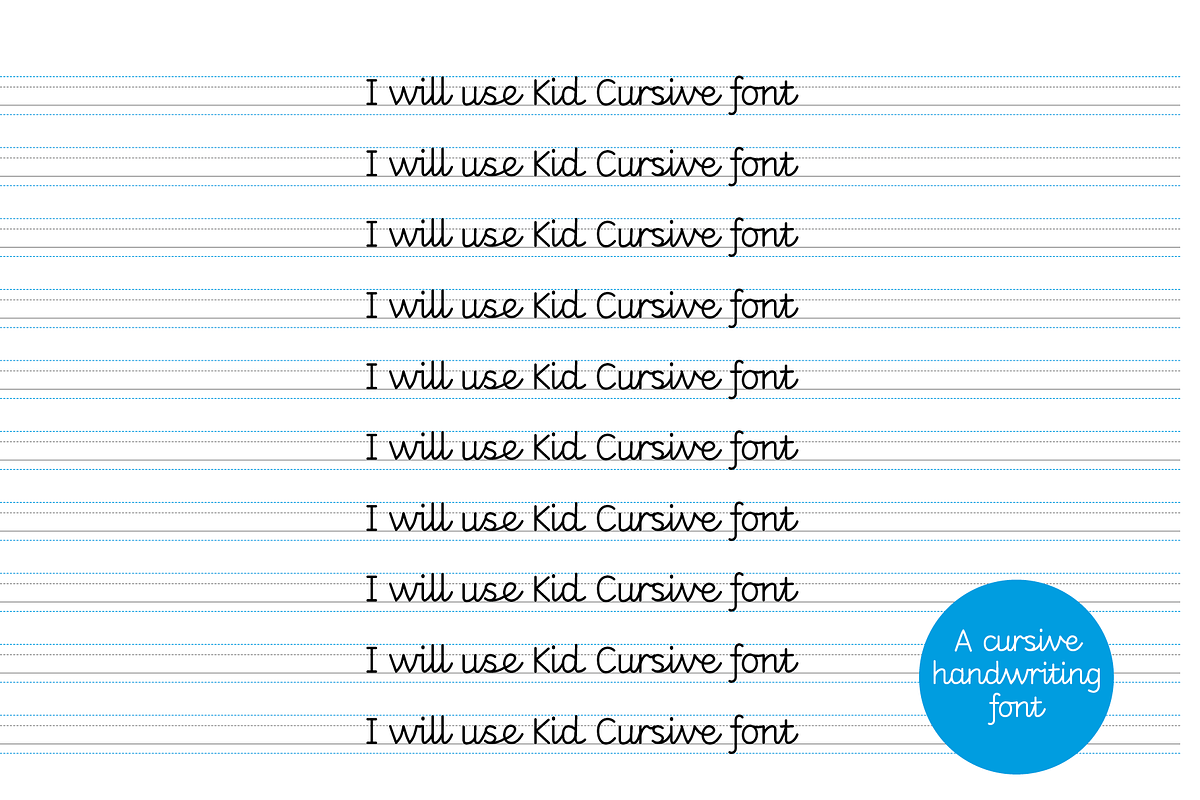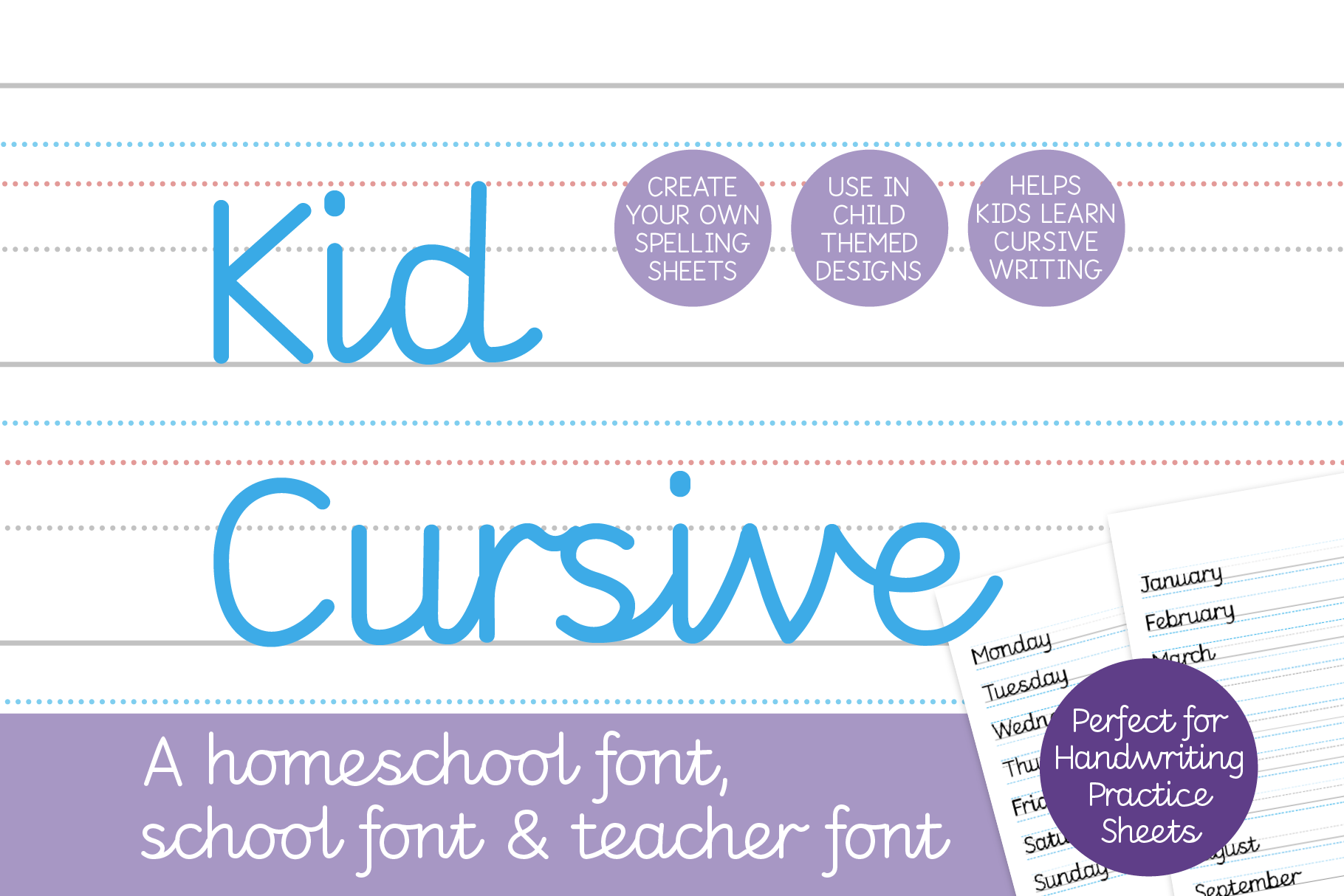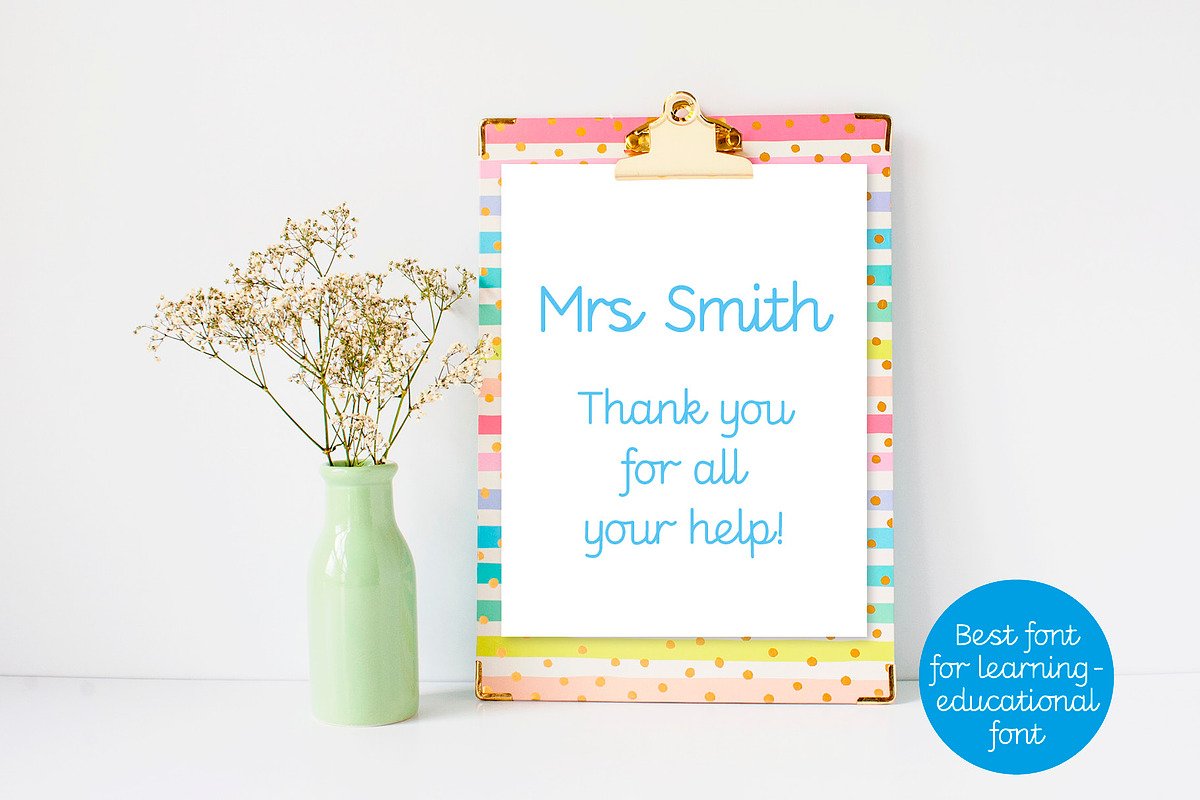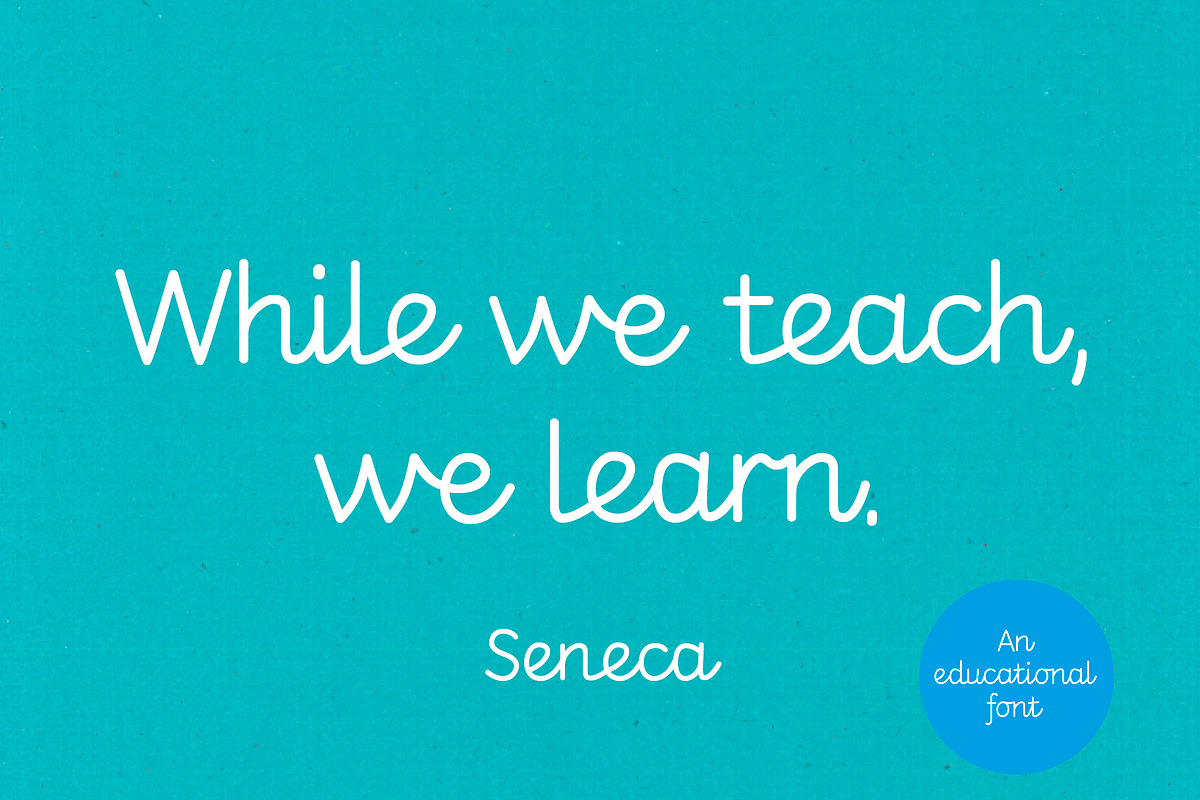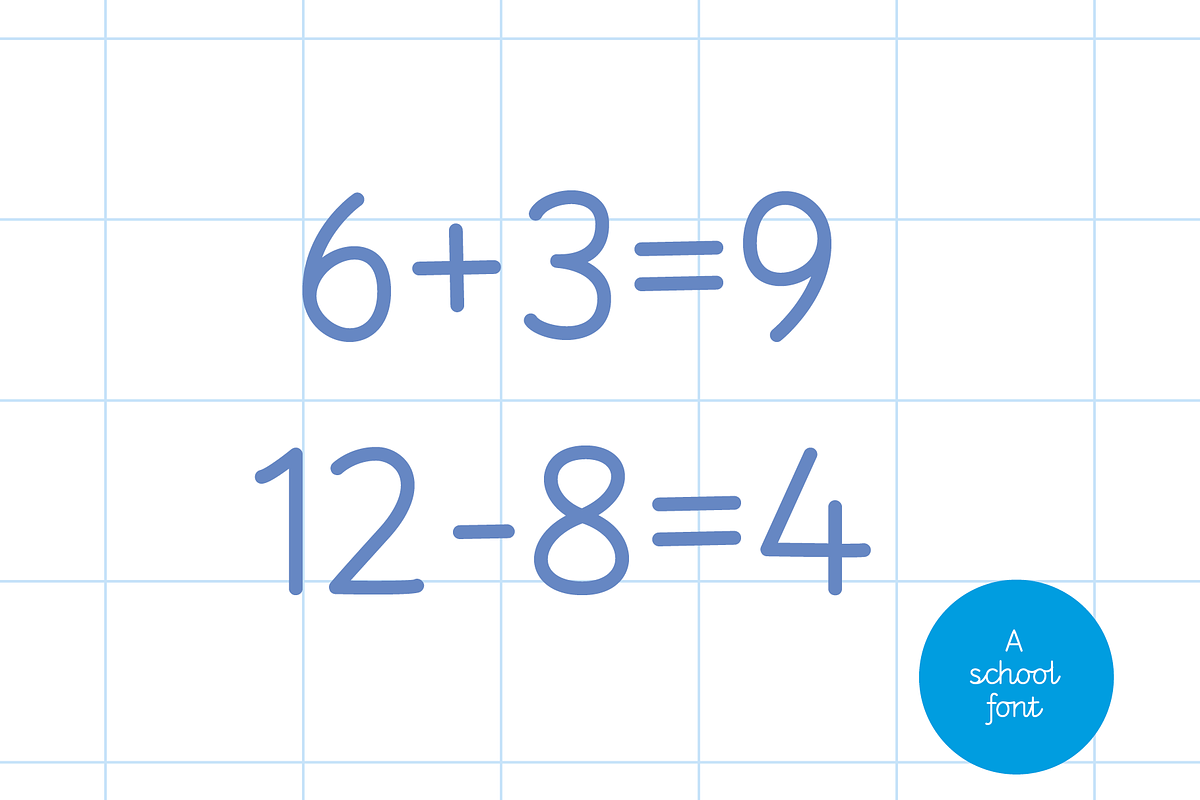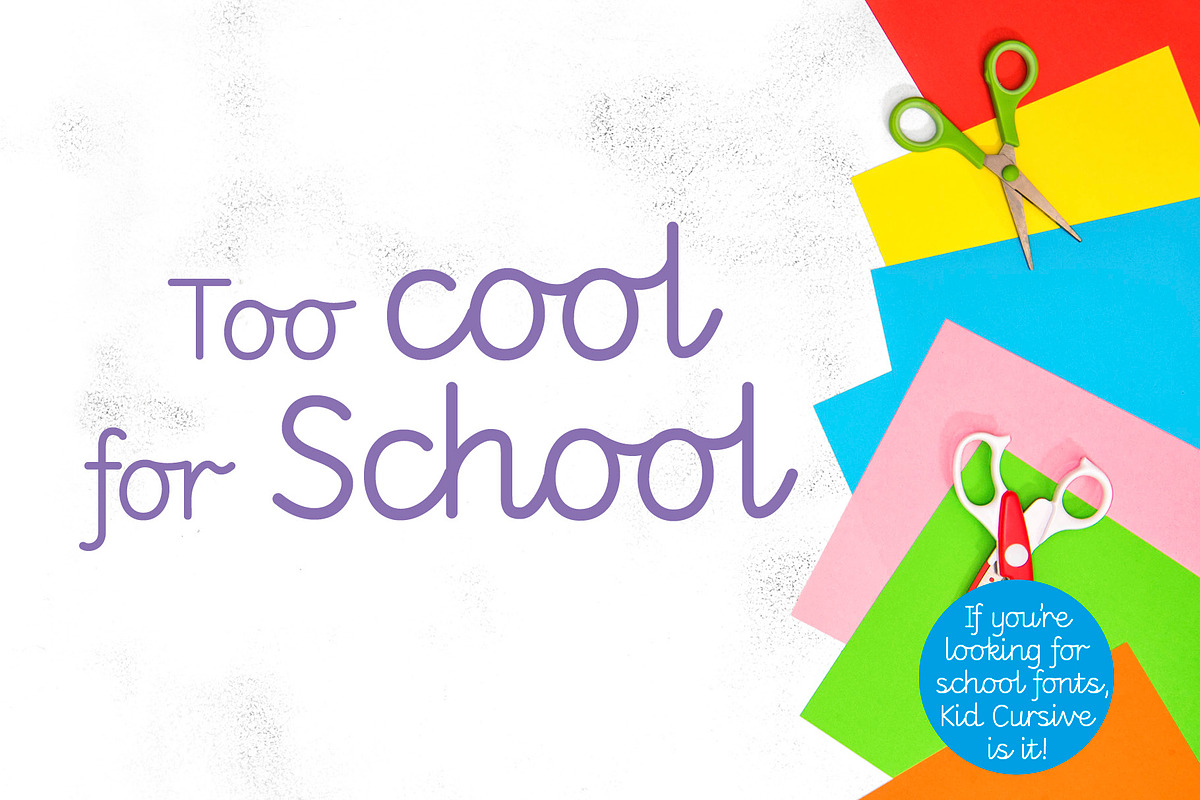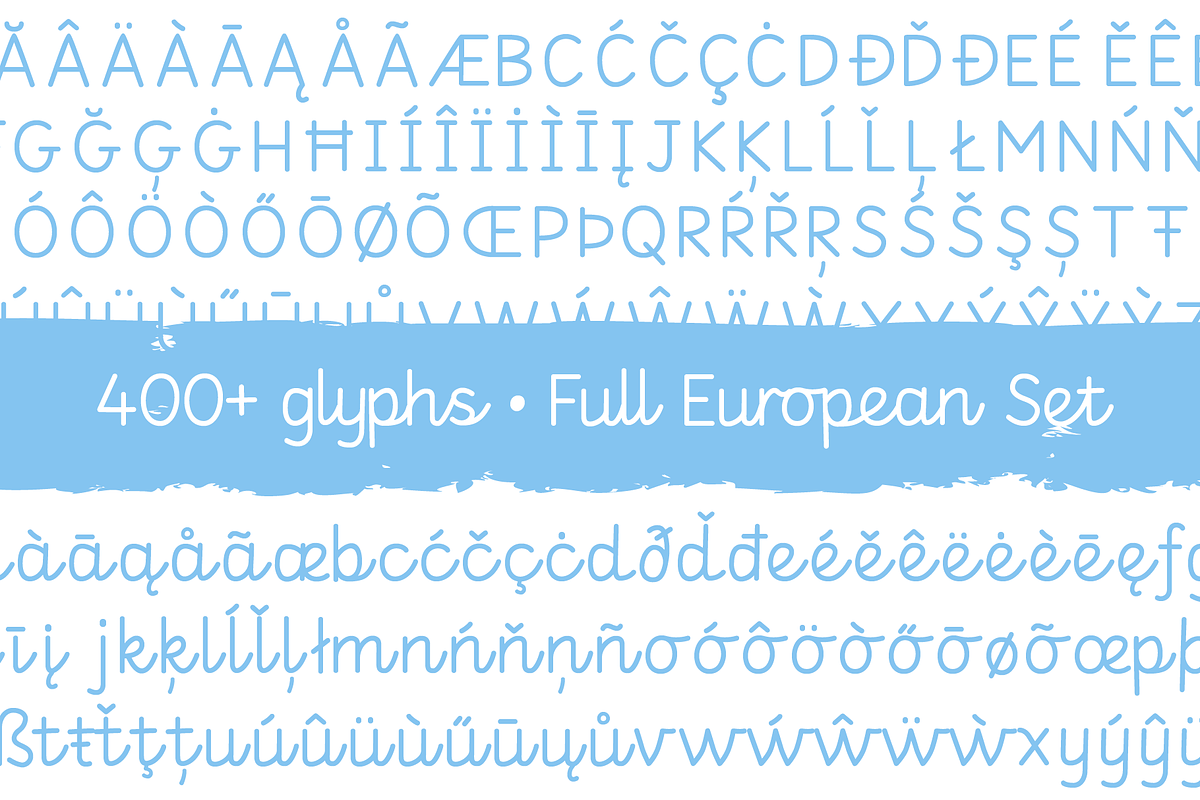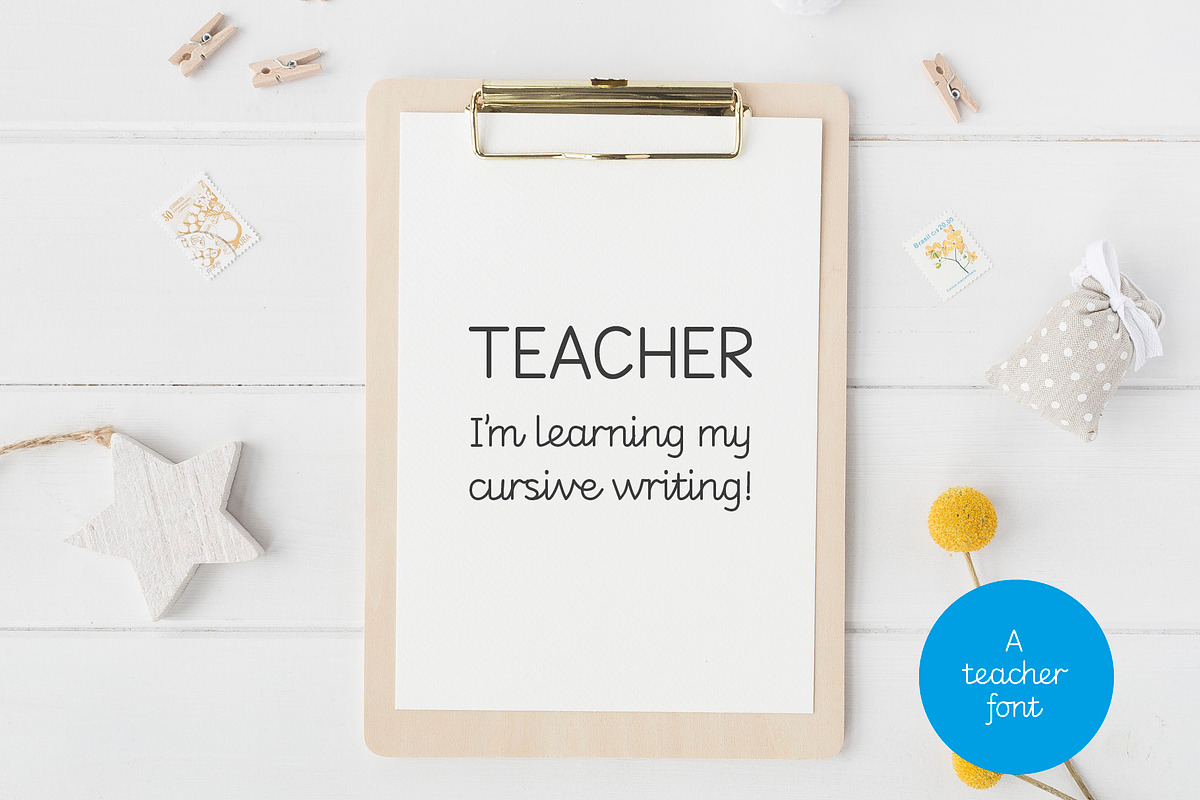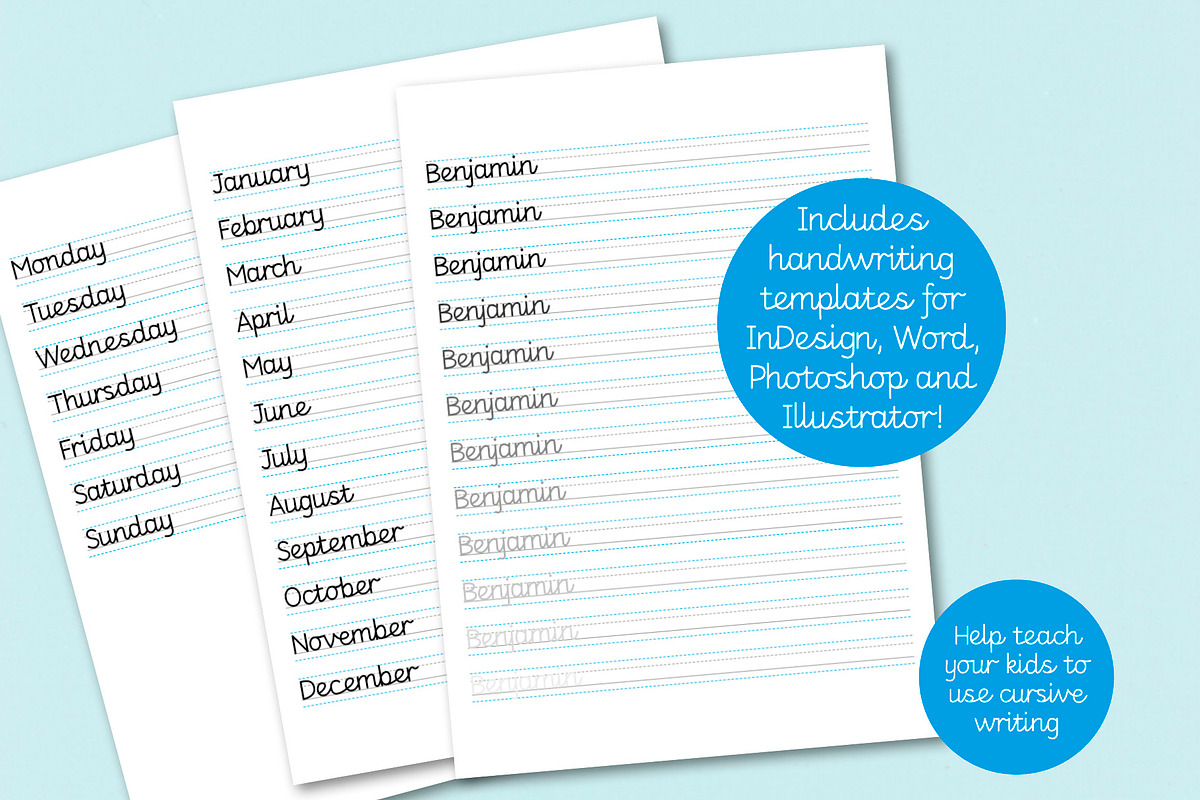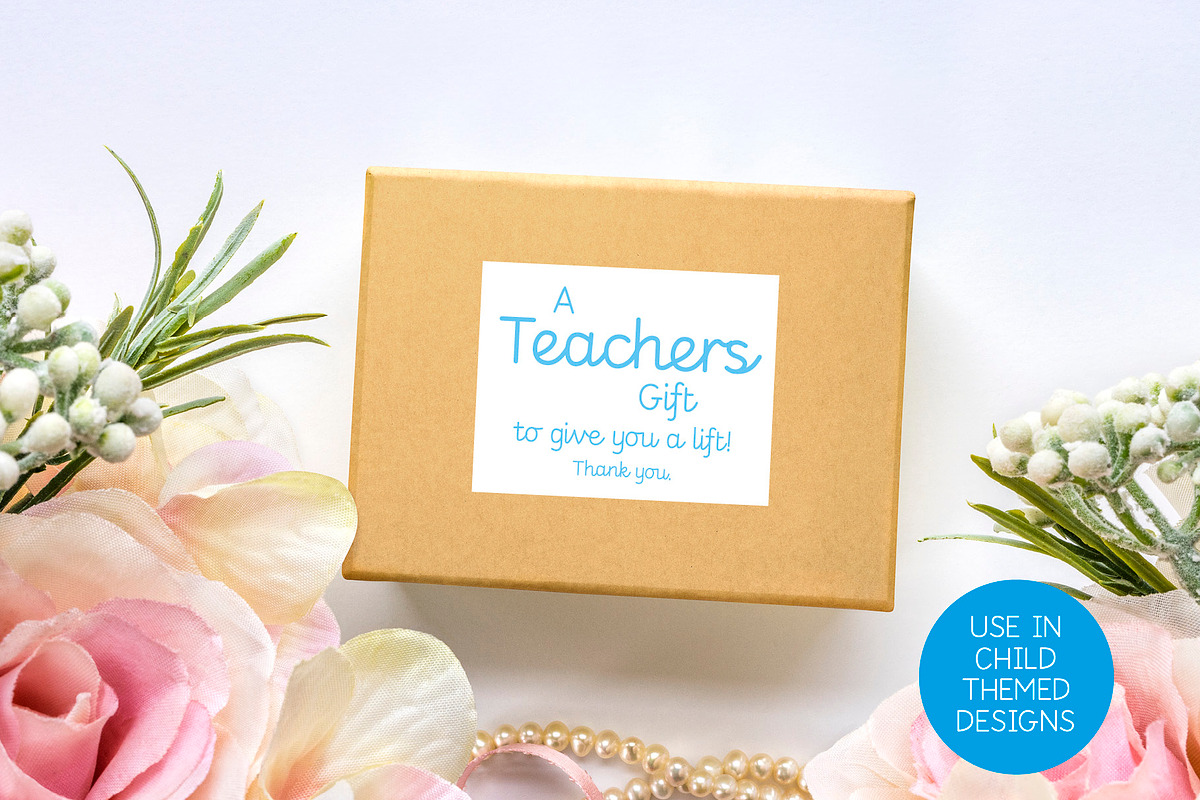
KID CURSIVE | school & teacher font
Kid Cursive - the best homeschool font, school font and teacher font. A cursive handwriting font.
Designed as a homeschool font to create handwriting practice sheets (worksheets) for kids to practice writing AND spelling! This is a great font for learning. A true cursive handwriting font for Key Stage 2 children in the UK, that's for kids aged around 7-11 years old. Great for parents who want to assist their child's learning. A terrific teacher font for them to create worksheets and spelling sheets. An all round school font!
This educational tool is one of the best fonts for learning. BUT it also looks great used in children themed designs.
Kid Cursive includes loads of contextual alternatives to allow the letters to join naturally. Perfect as an educational font it is the best font for learning.